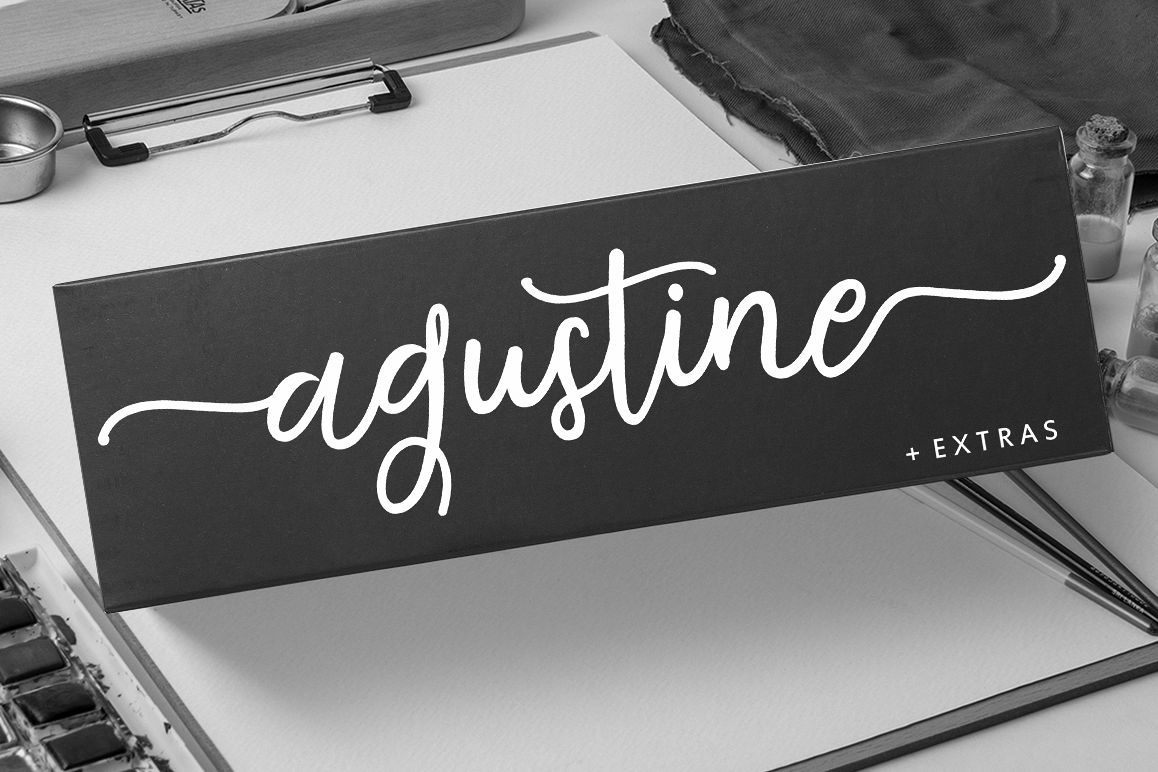
Agustine Script
Agustine Script + Extras is a calligraphic manuscript modern, dynamic and pretty with swashes. Can be used for many purposes. such as title, signature, logo, wedding invitations, letterhead, signage, labels, newsletters, posters, badges, etc.
Agustine Script features Open type, including the initial and terminal letters, ligatures and International support for most Western languages ??included.
Like this one! Got nice firm lines... Suits well for vinyl cutted stickers.
Great font
A fonte é linda, vem com os acentos e glifos.
It has a great flow and is quite readable.